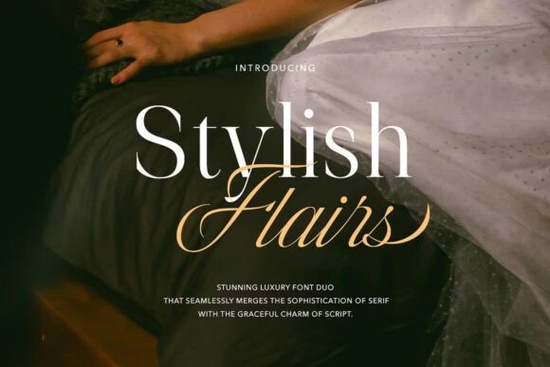
If you're looking for a font that works equally well on a wedding invitation, a boutique logo, or a hand-painted greeting card, Stylish Flairs Font is worth your attention. It’s not just another script or serif it’s a thoughtfully paired duo where both styles were designed to complement each other without extra tweaking. You get a refined serif and an elegant script in one package, so there’s no guesswork about which font goes with which. That saves time whether you’re finalizing a client’s brand identity or prepping files for print-on-demand.
What makes Stylish Flairs different from other luxury fonts?
Many designers end up mixing fonts from different foundries only to find spacing, weight balance, or x-heights don’t quite line up. With Stylish Flairs Font, the serif and script were created together. The serifs have subtle calligraphic warmth; the script flows naturally but stays legible at smaller sizes. Neither feels overly ornate or hard to read. That balance matters when you’re designing something like a monogrammed tote bag or a minimalist business card details should support the message, not distract from it.
You’ll also appreciate how well it scales. Use the serif for headlines or product labels, and the script for accents, names, or short quotes. Both include standard OpenType features like ligatures and alternate characters, which help avoid awkward letter collisions especially useful if you’re working with names like “Thompson” or “O’Connor.”
Where does this font work best?
Stylish Flairs Font fits naturally into several real-world uses:
- Wedding stationery From save-the-dates to place cards, the pairing gives a polished, personal feel without looking dated.
- Small business branding Think artisanal coffee roasters, ceramic studios, or handmade soap labels. The serif adds trust; the script adds character.
- Digital craft templates If you sell Canva templates or printable planners, this duo holds up across devices and renders cleanly in PDFs.
- Print-on-demand products Works reliably on mugs, notebooks, and apparel mockups because both fonts are optimized for clarity at common print sizes.
It’s not designed for long paragraphs or body text so don’t reach for it when typesetting a newsletter or blog post. But for short-form, high-impact applications? It’s quietly effective.
How does it compare to other serif + script pairings?
If you’ve used serif fonts with built-in script companions, you know how rare it is to find harmony without manual adjustment. Stylish Flairs Font sits comfortably alongside options like Elegant Font (which leans more classic and structured) or Kalista Elegant Font (a bit more romantic and airy). It’s less formal than Zacorsea Font, which has stronger contrast and sharper terminals making Stylish Flairs a better fit for softer, contemporary aesthetics.
- Test the script at 24–36 pt first. It’s legible down to ~18 pt, but readability drops below that, especially in all-caps or tight tracking.
- The serif includes small caps and old-style figures use those for subtle typographic refinement in logos or packaging.
Next step: Try pairing the serif headline with the script subhead in a mockup then step away for 10 minutes and come back. If it still feels balanced and intentional, you’ve got a strong foundation. That’s the quiet strength of Stylish Flairs Font: it doesn’t shout, but it holds attention.